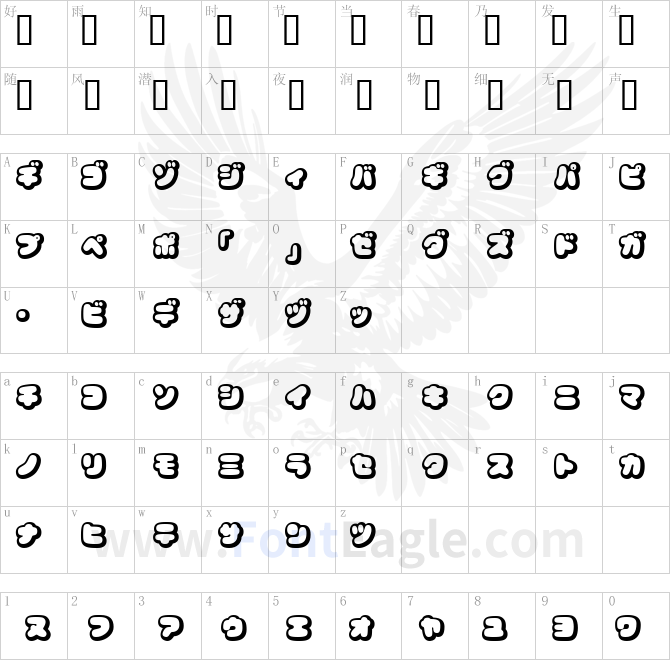
CoppepanCreamKt is a great font, widely used in graphic design, single-page menu design, poster design and other fields, and is deeply loved by designers.CoppepanCreamKt download.